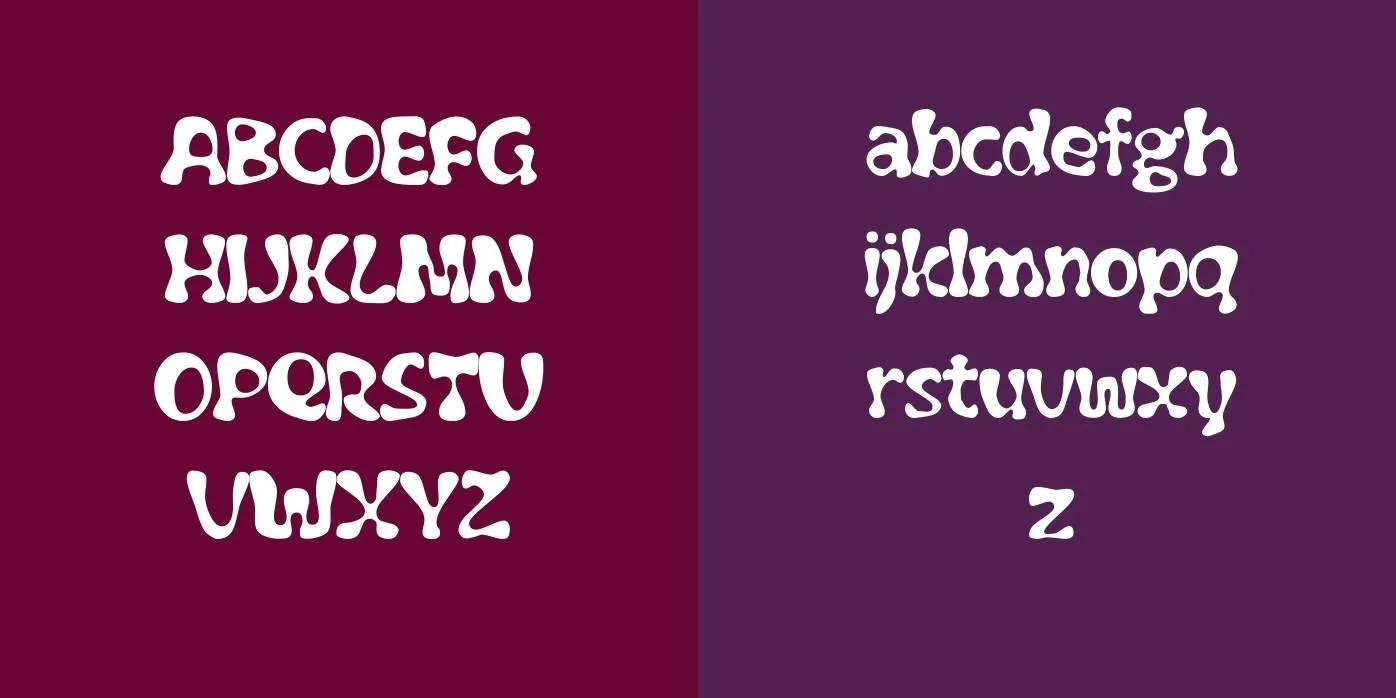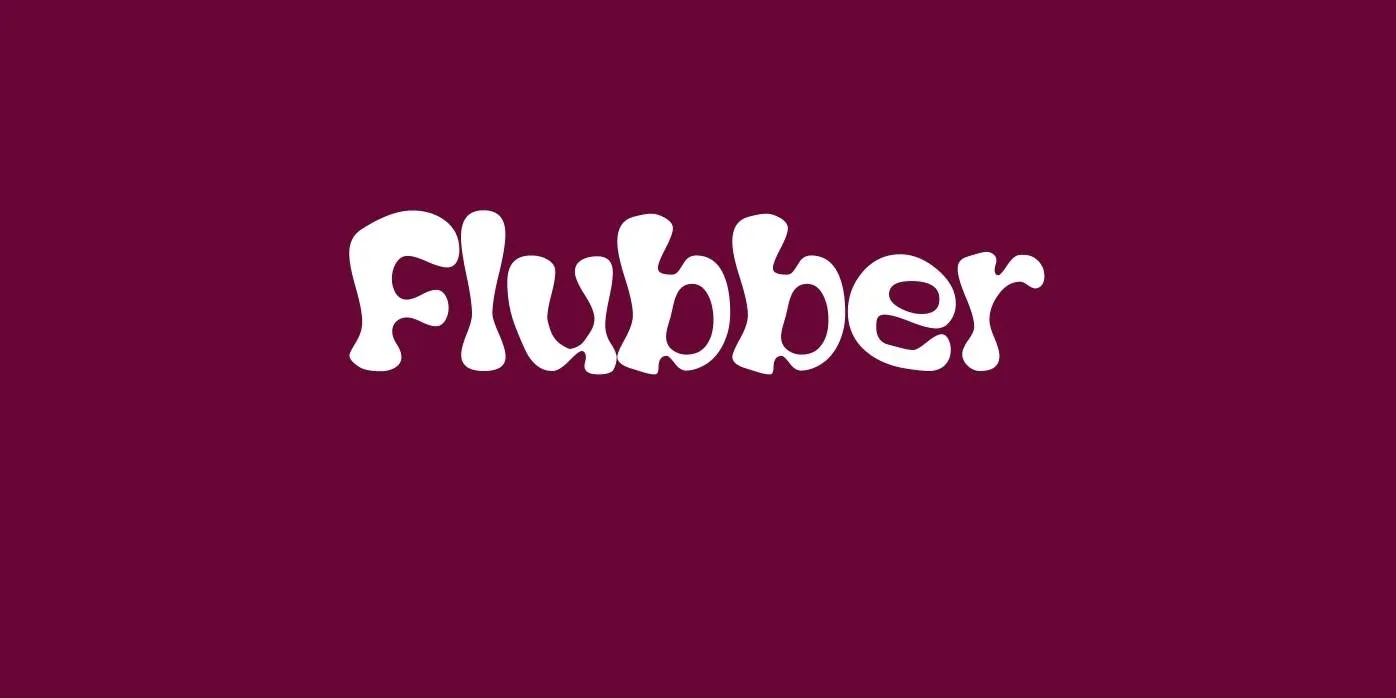
Flubber Font
Flubber Font is a fancy typeface designed by Unauthorized type. This typeface is perfect for all your designs. This will be your great choice to highlight your creativity in designs. This typeface Comes in only one style.
It has 178 defined characters and 127 unique glyphs including uppercase letters, special characters, lowercase letters, numbers, and many international characters. It has no fixed pitch. The third degree font is a similar texture to this font. This font can be make a very unique paired with Flubber Font.